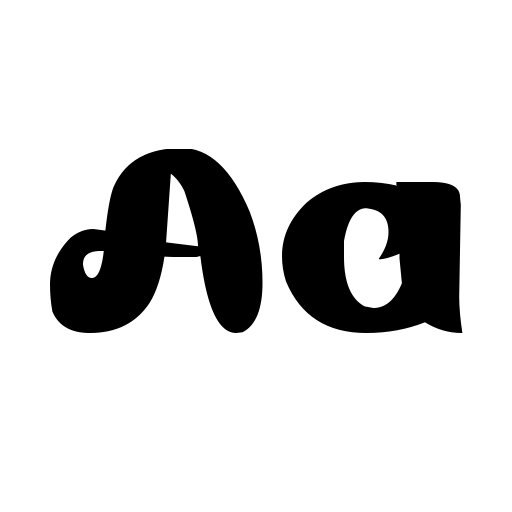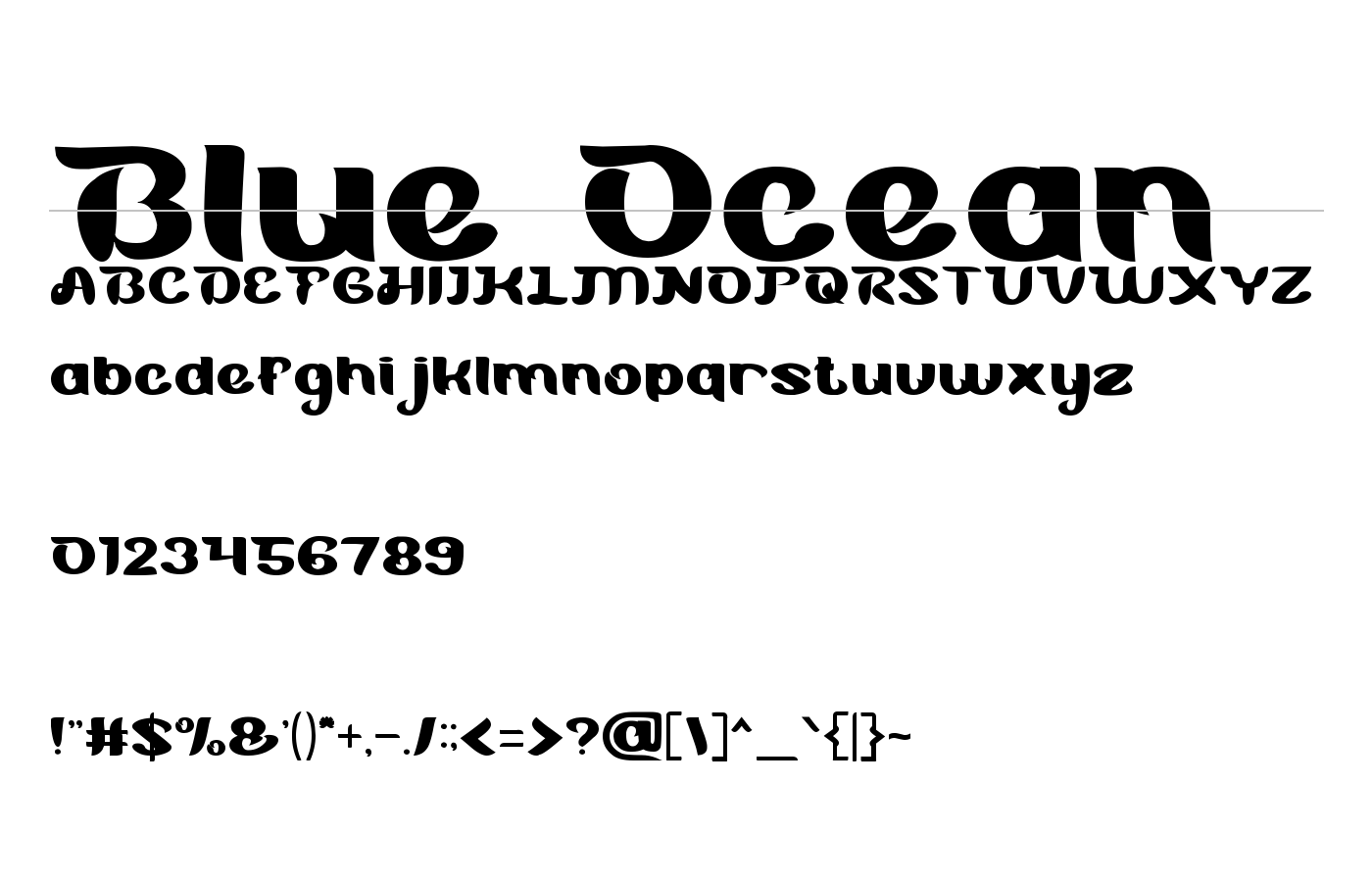
Blue Ocean is a bold, playful serif font with a lively personality, featuring heavy, rounded strokes and unique, whimsical letter shapes that give it a friendly and approachable feel. Its thick weight and moderate contrast make it ideal for eye-catching headlines, logos, and packaging where a fun and distinctive style is desired. This font works well for brands aiming to convey creativity and warmth while standing out with a vintage-inspired yet modern twist.
Blue Ocean Font
About Blue Ocean Font